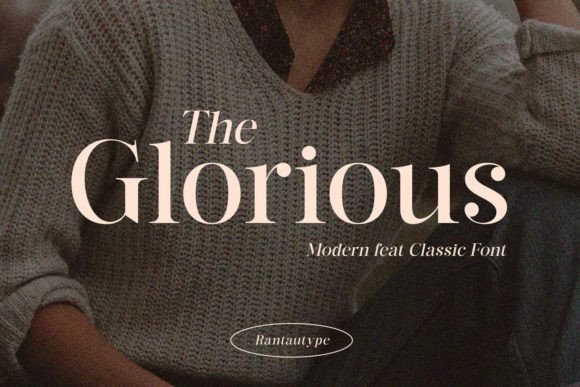
Introducing The Glorious Font - Timeless Elegance with Modern Grace
Embrace the beauty of nostalgia and the power of modernity with The Glorious Font, a creation by RantauType that embodies timeless elegance in a digital realm. This contemporary serif font seamlessly unites a sleek and stylish design with a subtle hint of vintage charm. Its crisp lines and graceful curves intertwine effortlessly, offering a harmonious balance that elevates any design project.
Step into a world of sophistication and charm with The Glorious font. This captivating font exudes an aura of nostalgia that breathes life into your projects, adding a touch of history to modern creations. Its essence lies in its ability to create a lasting impression, whether it's in editorial design, branding, or any project that demands sophistication.
Whether you're a seasoned designer or venturing into the world of typography for the first time, The Glorious Font is your perfect companion. Its versatile style effortlessly adapts to a myriad of projects, from heartfelt quotes and elegant invitations to captivating social media posts and stunning branding material. Let your creativity soar as you explore the endless possibilities that await you with The Glorious.
Unlock the power of The Glorious Font today, and embark on a design journey that blends the best of both worlds – the allure of the past and the innovation of the present. Let your words and designs radiate with the beauty of The Glorious and create timeless impressions that captivate and inspire.